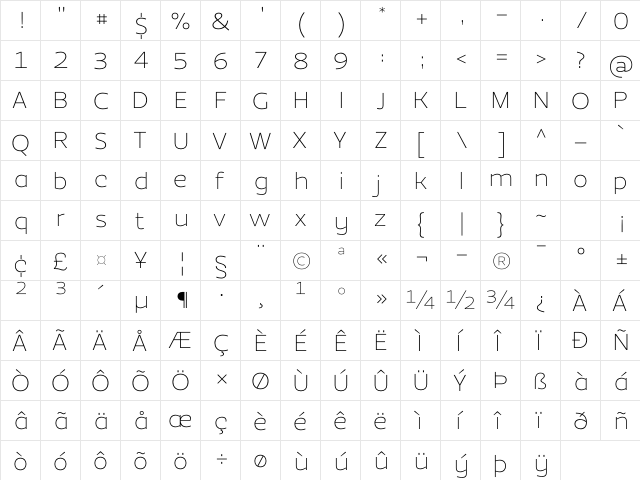
EzzoThinAlt Regular
| Foundry | Dino dos Santos _DSType |
Design Context for EzzoThinAlt Typeface
EzzoThinAlt takes a measured approach to typography — its balanced proportions and neutral character make it a reliable workhorse for both digital and print work. The delicate stroke weight brings airiness and refinement to layouts.